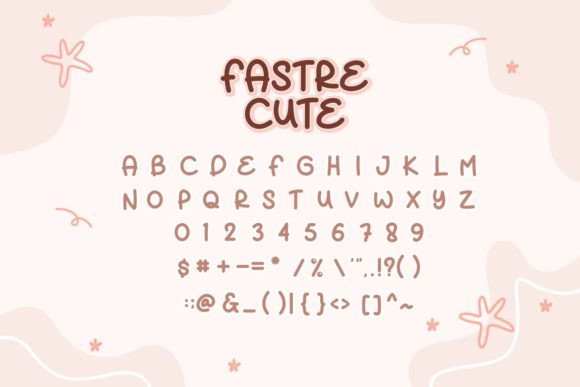
Introducing Fastre Cute Font: The Ultimate Display Font for Your Branding Needs
In the world of typography, fonts play a crucial role in conveying the tone and personality of a brand. When it comes to creating a lasting impression, a well-designed font can make all the difference. This is where Fastre Cute Font comes in – a bold and authentic display font that is perfect for any branding project. In this article, we’ll explore the features and benefits of Fastre Cute Font and how it can elevate your brand’s visual identity.
What is Fastre Cute Font?
Fastre Cute Font is a bold and authentic display font designed to make a statement. Its unique and playful design makes it perfect for a variety of applications, from logos and t-shirt printing to creative products and more. This font is extraordinary in a variety of contexts, and its versatility makes it a valuable addition to any designer’s toolkit.
Key Features of Fastre Cute Font
- Bold and Authentic Design: Fastre Cute Font boasts a bold and authentic design that is sure to grab attention. Its unique and playful style makes it perfect for brands that want to stand out from the crowd.
- Versatility: This font is designed to be versatile and can be used in a variety of contexts, from logos and t-shirt printing to creative products and more.
- Ease of Use: Fastre Cute Font is easy to use and can be easily integrated into your design projects. Its clean and simple design makes it easy to read and understand.
- High-Quality Design: Fastre Cute Font is designed with high-quality graphics, making it perfect for printing and digital applications.
Benefits of Using Fastre Cute Font
Using Fastre Cute Font can bring numerous benefits to your branding projects. Here are some of the advantages of using this font:
- Unique and Memorable: Fastre Cute Font is designed to be unique and memorable, making it perfect for brands that want to stand out from the crowd.
- Professional and Clean Design: This font boasts a professional and clean design that is perfect for creating a lasting impression.
- Easy to Read and Understand: Fastre Cute Font is easy to read and understand, making it perfect for use in a variety of contexts.
How to Use Fastre Cute Font
Using Fastre Cute Font is easy and straightforward. Here are some tips on how to use this font in your design projects:
- Logos and Branding: Use Fastre Cute Font to create unique and memorable logos that reflect your brand’s personality.
- T-Shirt Printing: This font is perfect for t-shirt printing, adding a touch of personality and style to your designs.
- Creative Products: Use Fastre Cute Font to create creative products such as posters, flyers, and brochures that grab attention.
- Digital Applications: This font is perfect for digital applications such as social media graphics, website headers, and more.
Why Choose Fastre Cute Font?
With so many fonts available, why choose Fastre Cute Font? Here are some reasons why this font stands out from the rest:
- Unique Design: Fastre Cute Font boasts a unique and playful design that is sure to grab attention.
- Versatility: This font is designed to be versatile and can be used in a variety of contexts.
- High-Quality Design: Fastre Cute Font is designed with high-quality graphics, making it perfect for printing and digital applications.
- Cost-Effective: This font is a cost-effective solution for your branding needs, providing high-quality design at an affordable price.
In conclusion, Fastre Cute Font is a bold and authentic display font that is perfect for any branding project. Its unique and playful design makes it perfect for a variety of applications, from logos and t-shirt printing to creative products and more. With its versatility, ease of use, and high-quality design, Fastre Cute Font is a valuable addition to any designer’s toolkit.
- What is Fastre Cute Font?: Fastre Cute Font is a bold and authentic display font designed for branding projects.
- What is Fastre Cute Font used for?: This font is perfect for logos, t-shirt printing, creative products, and more.
- Is Fastre Cute Font easy to use?: Yes, Fastre Cute Font is easy to use and can be easily integrated into your design projects.